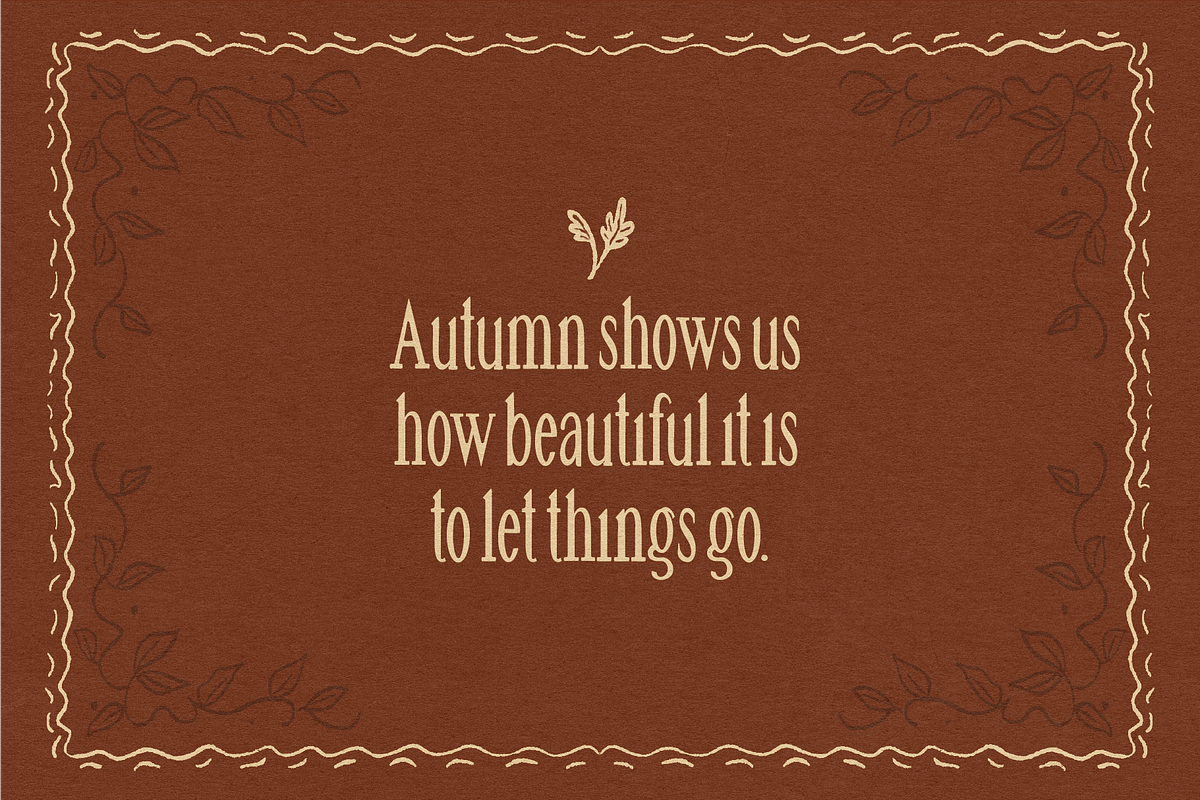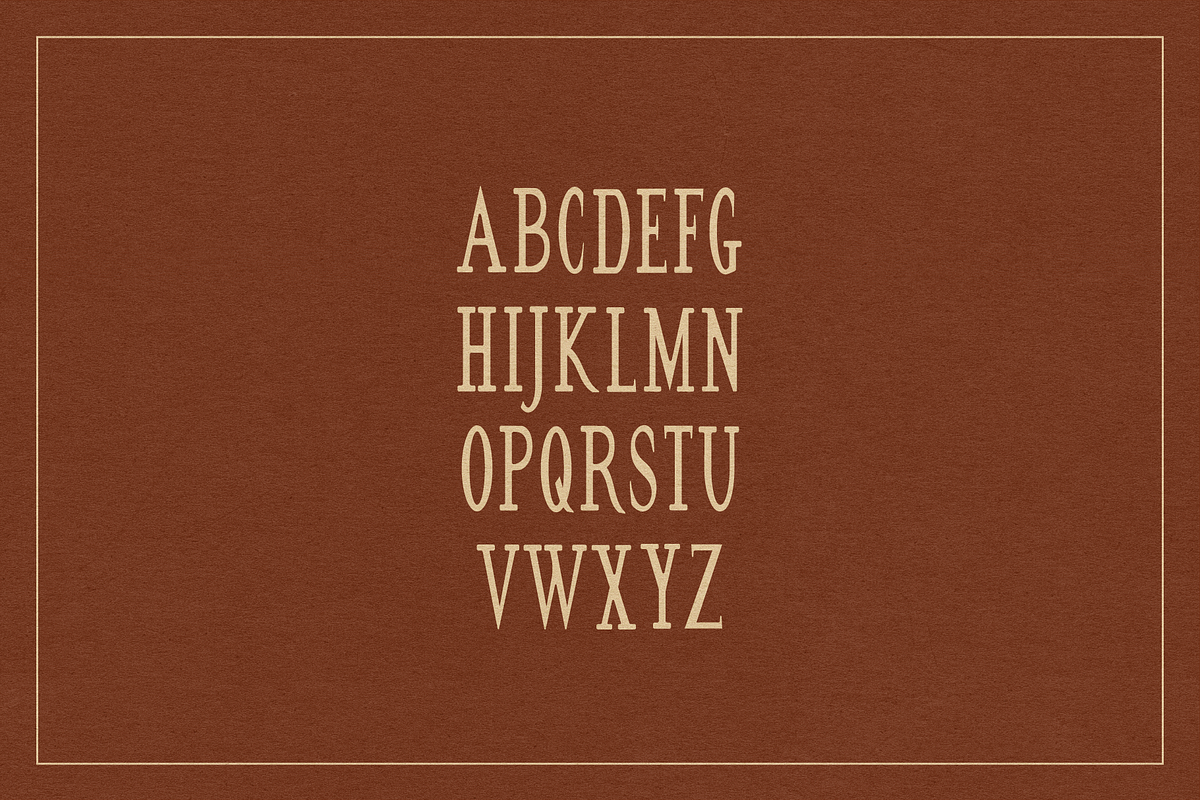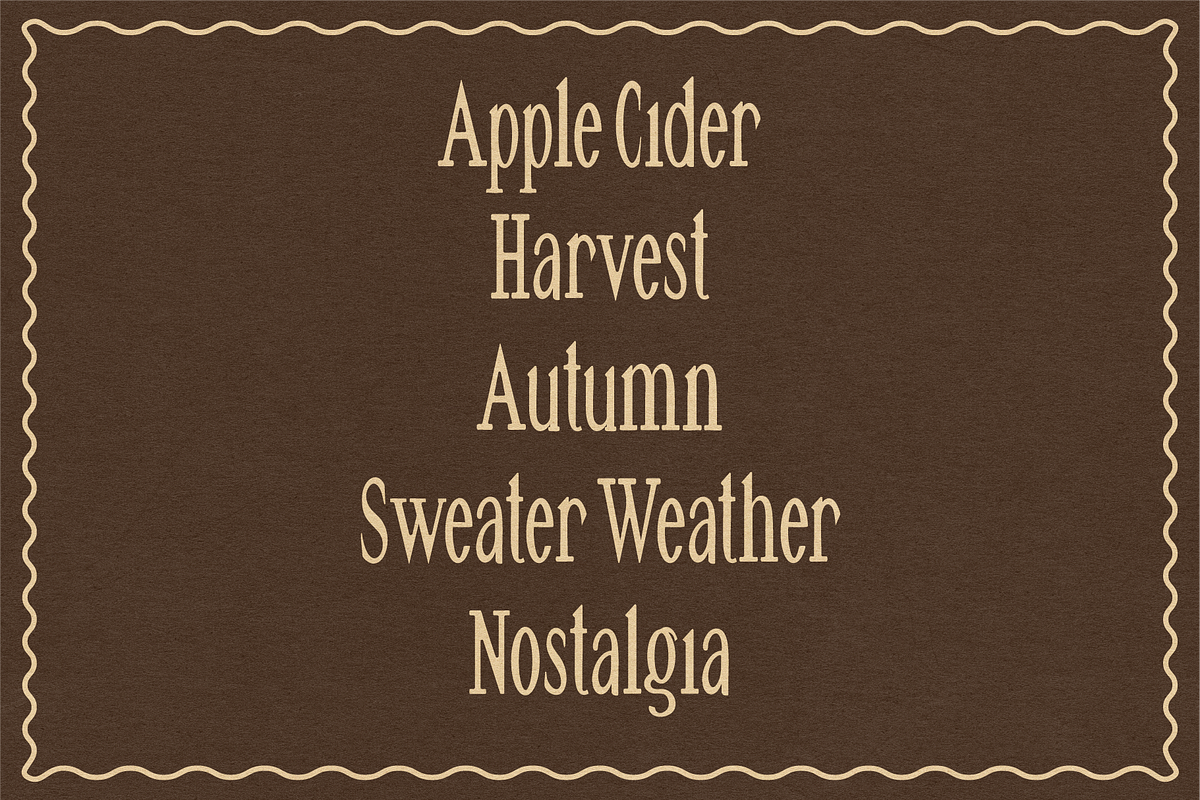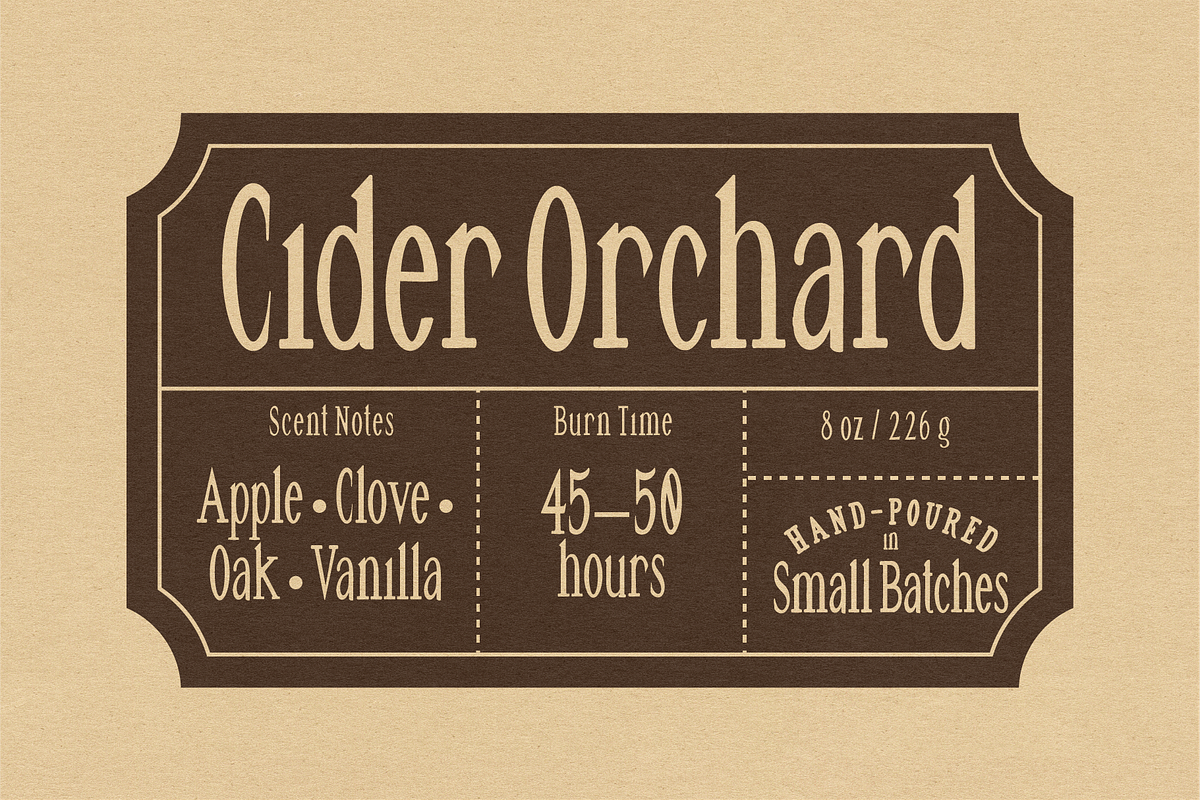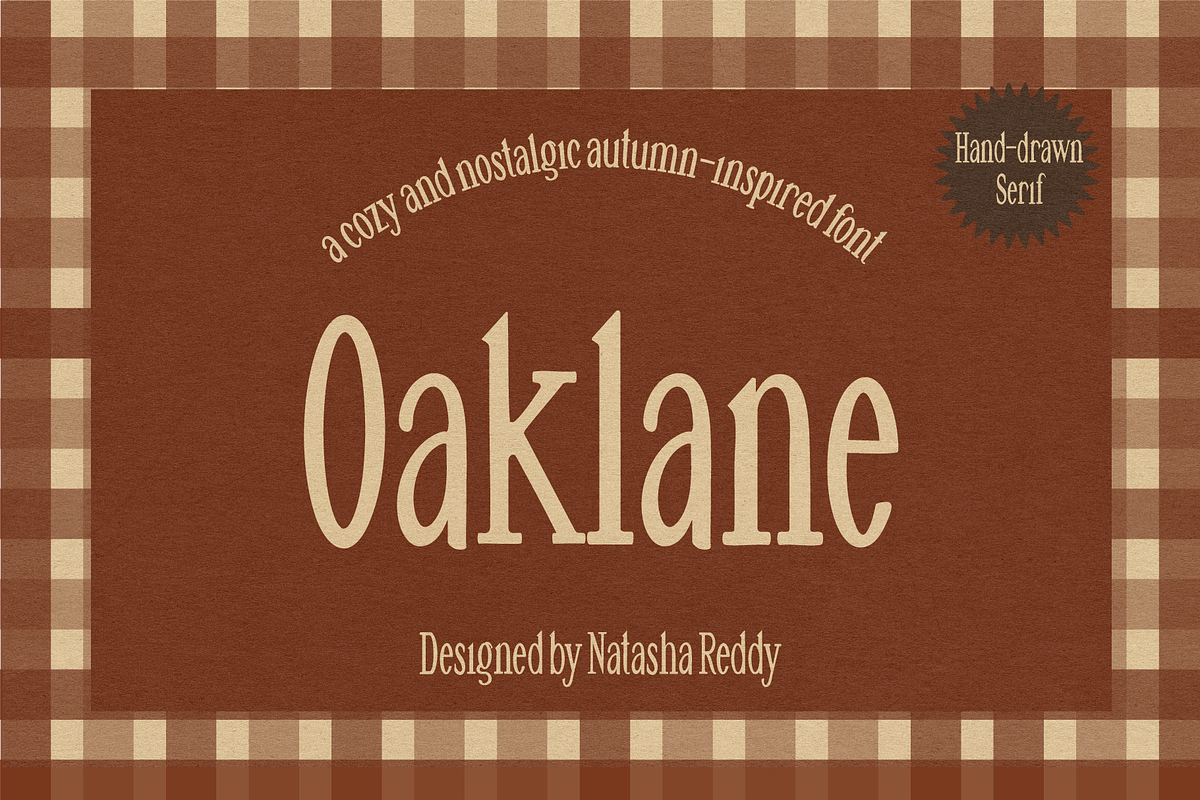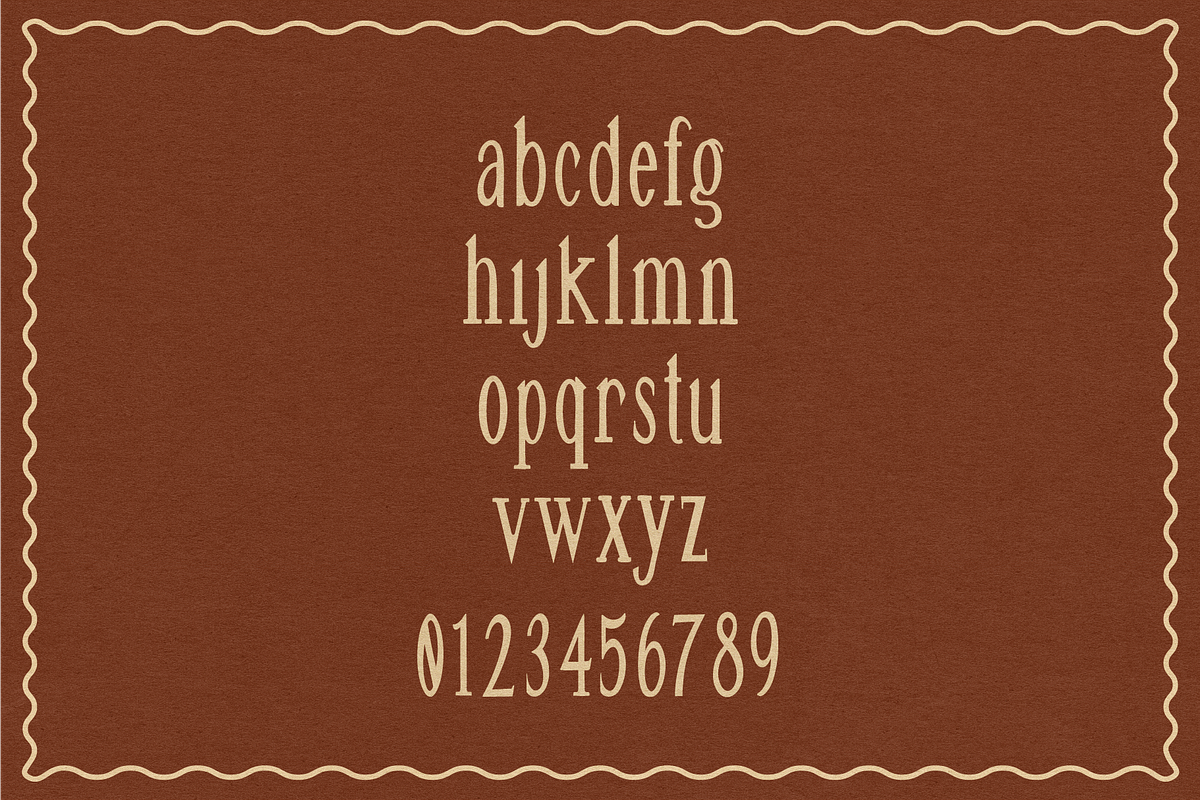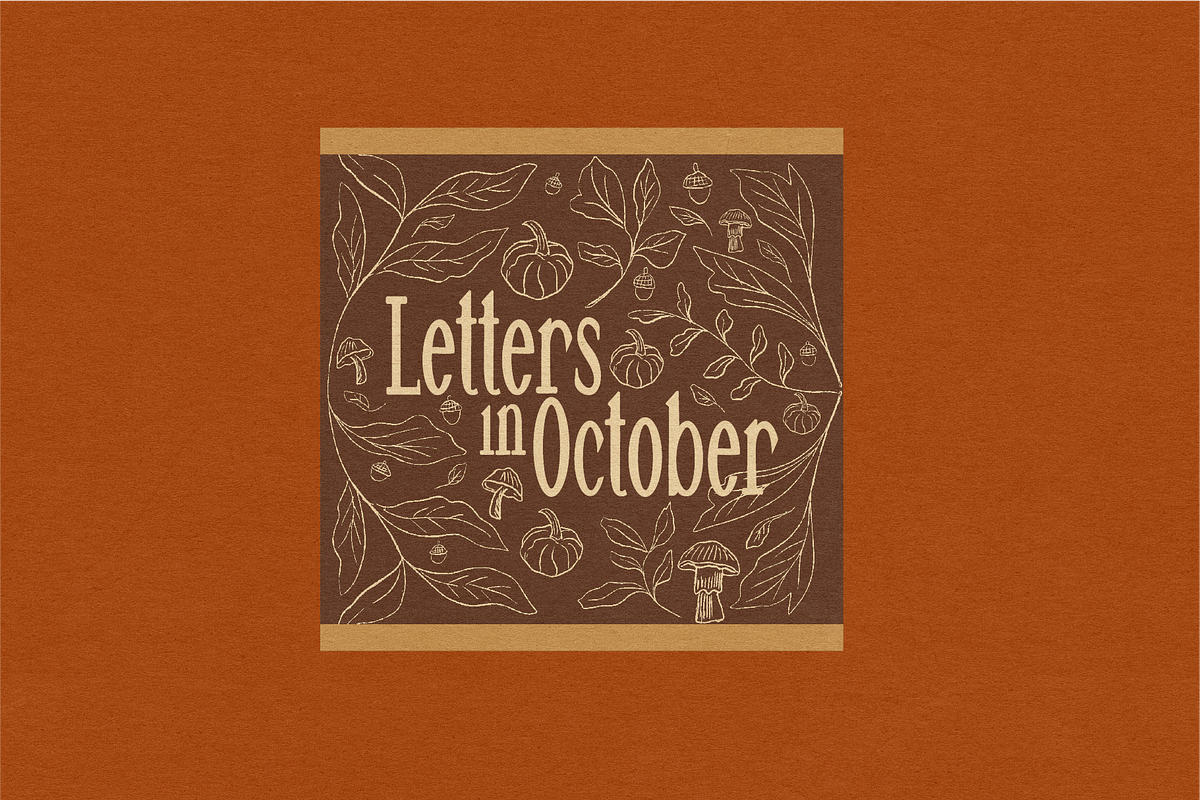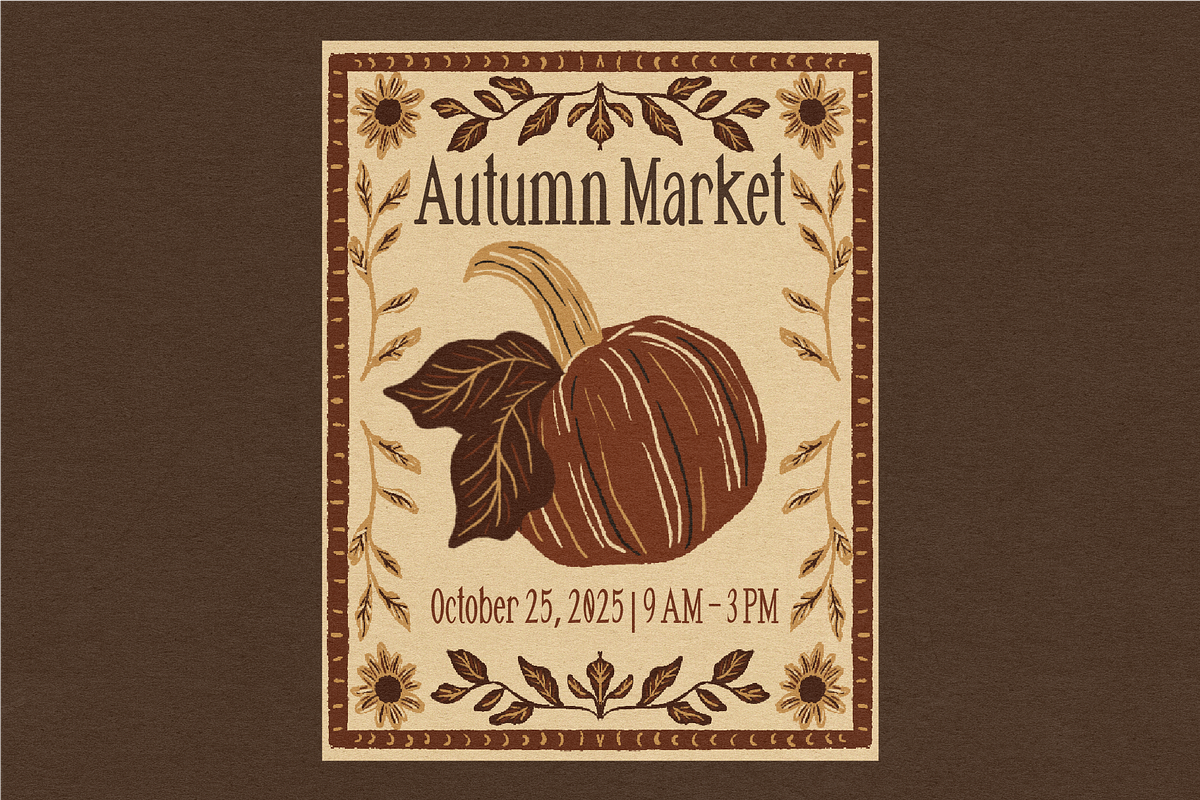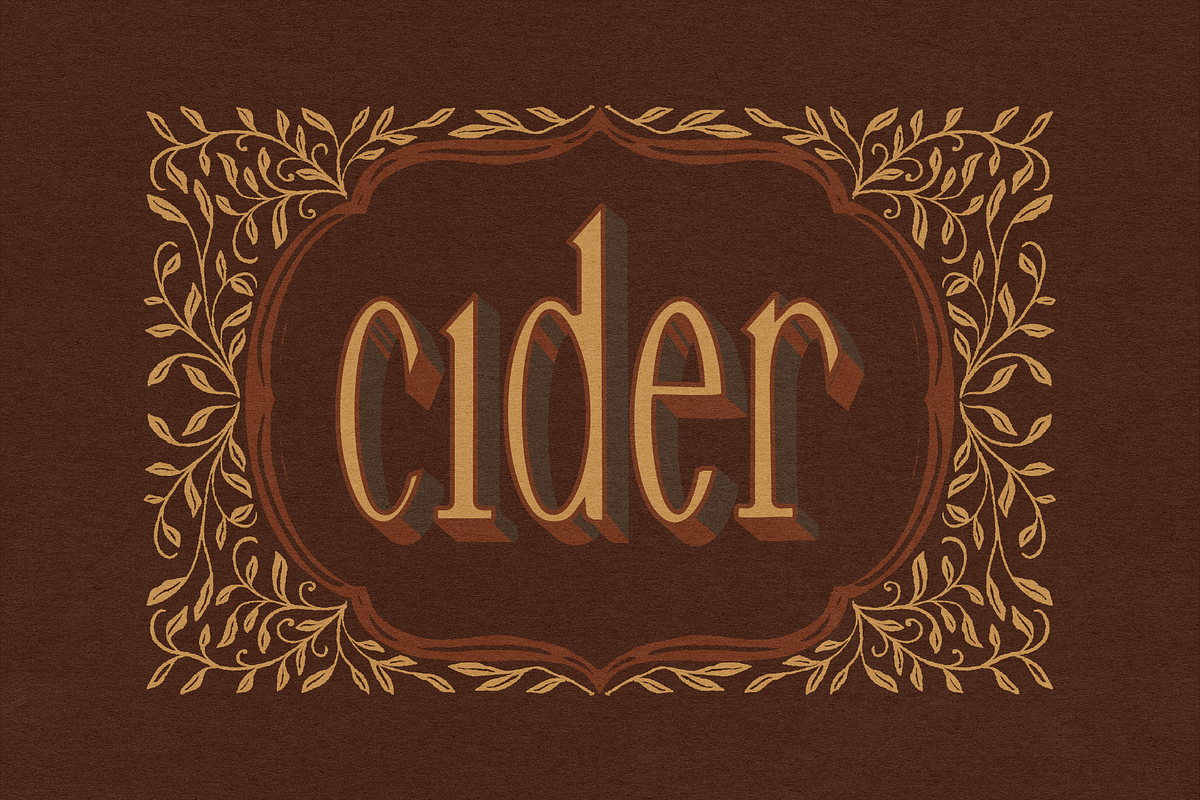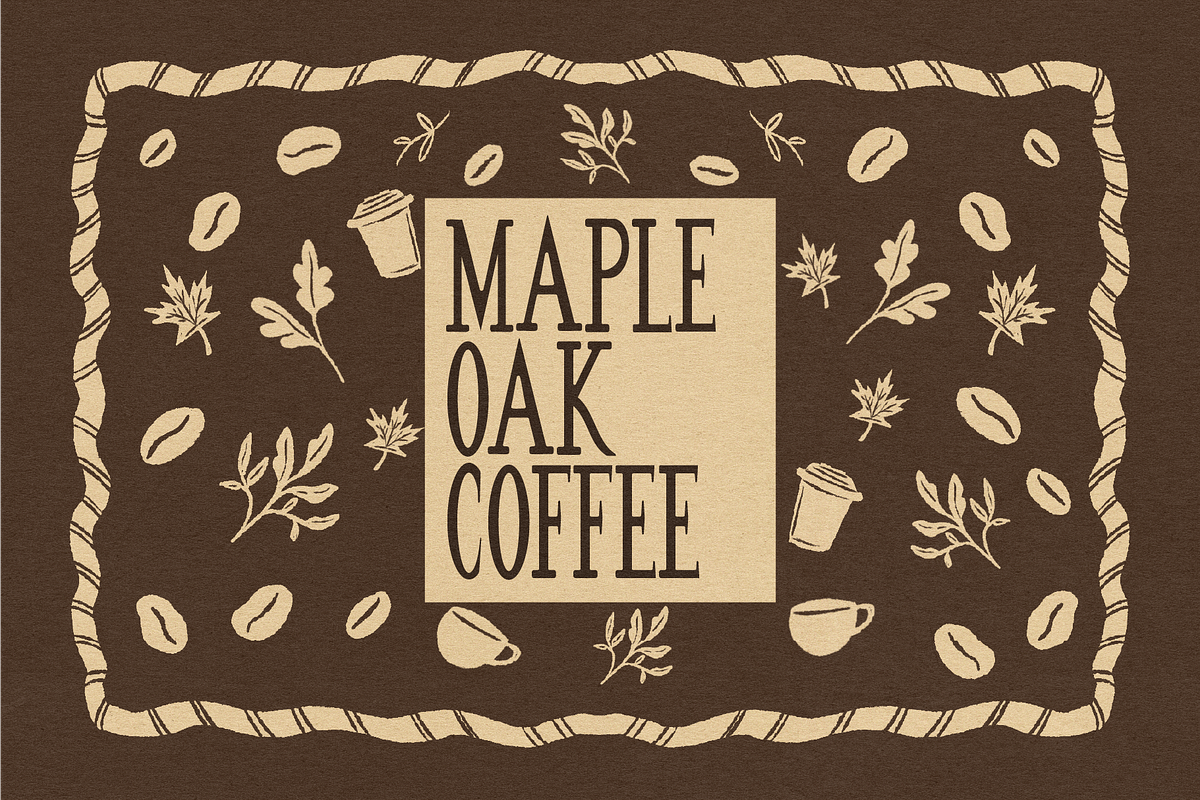
OAKLANE by Natasha Reddy
OAKLANE is a hand-drawn, tall, condensed serif inspired by nostalgic autumn vibes. Its warm, indie character makes it ideal for projects that need personality and a cozy, fall-inspired mood. Use it for posters, packaging, branding, album covers, book covers, or any design that wants to feel welcoming and nostalgic.